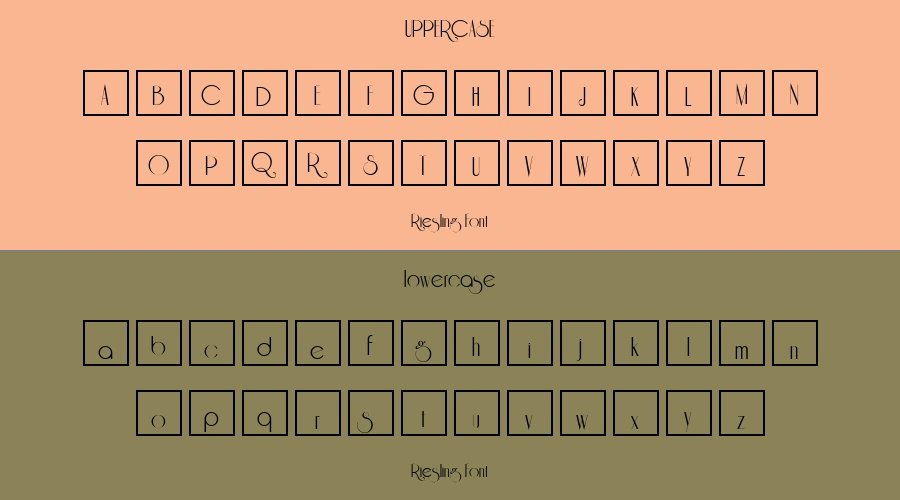
About Riesling Font
When typographic excellence matters most, Riesling Font delivers through its thoughtful blend of harmonious shapes and precision. Specially crafted for editorial design, it offers the consistency and adaptability required for sophisticated design work. Every detail serves a purpose.
The character set showcases thoughtful details like organic curves alongside functional ordinals. This proves especially valuable in image captions, where digital conversion directly influences results. Particular attention was paid to ascender height and educational suitability during development.